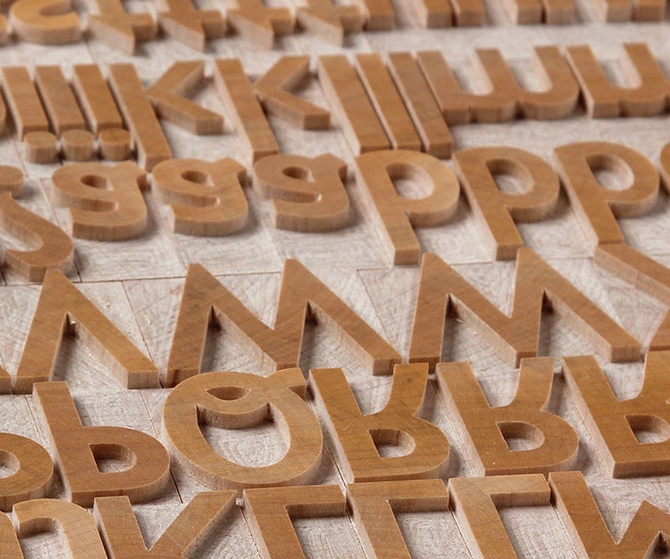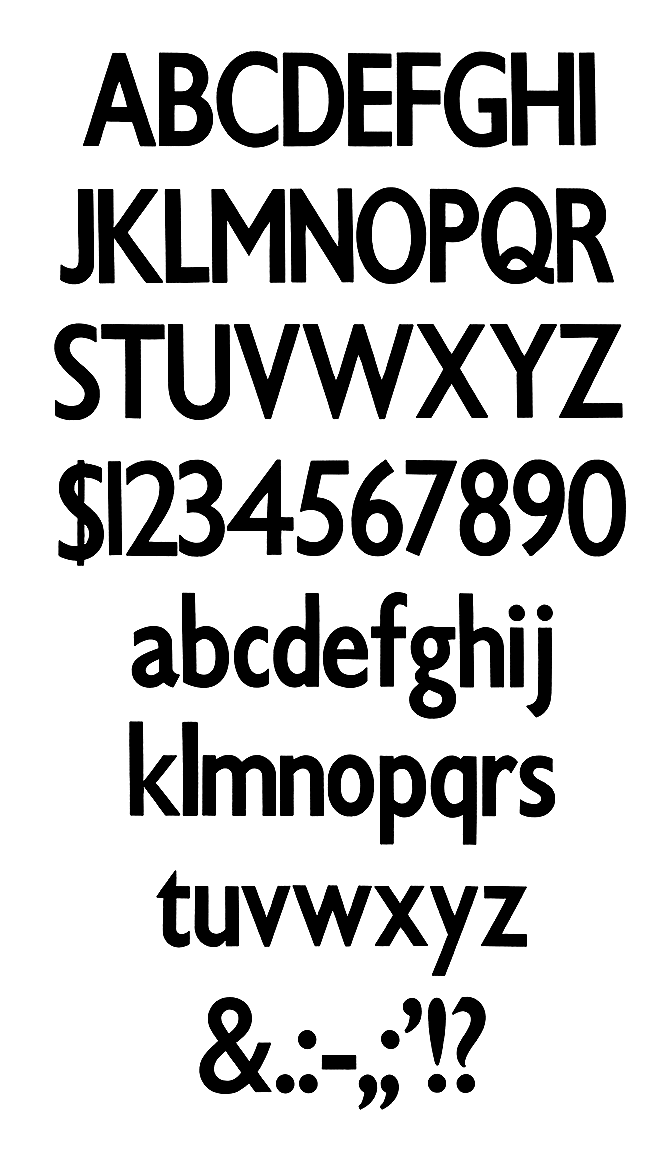
Gill Sans Condensed
Designed by British sculptor, graphic artist, and type designer Eric Gill (1882-1940), Gill Sans has become a standard bearer for sans serif typefaces. Gill's guiding design force was ultimate legibility, and Gill Sans meets that standard beautifully.
The patterns Virgin Wood Type uses to make the Gill Sans Condensed were supplied to American Wood Type by Stephenson Blake in England.